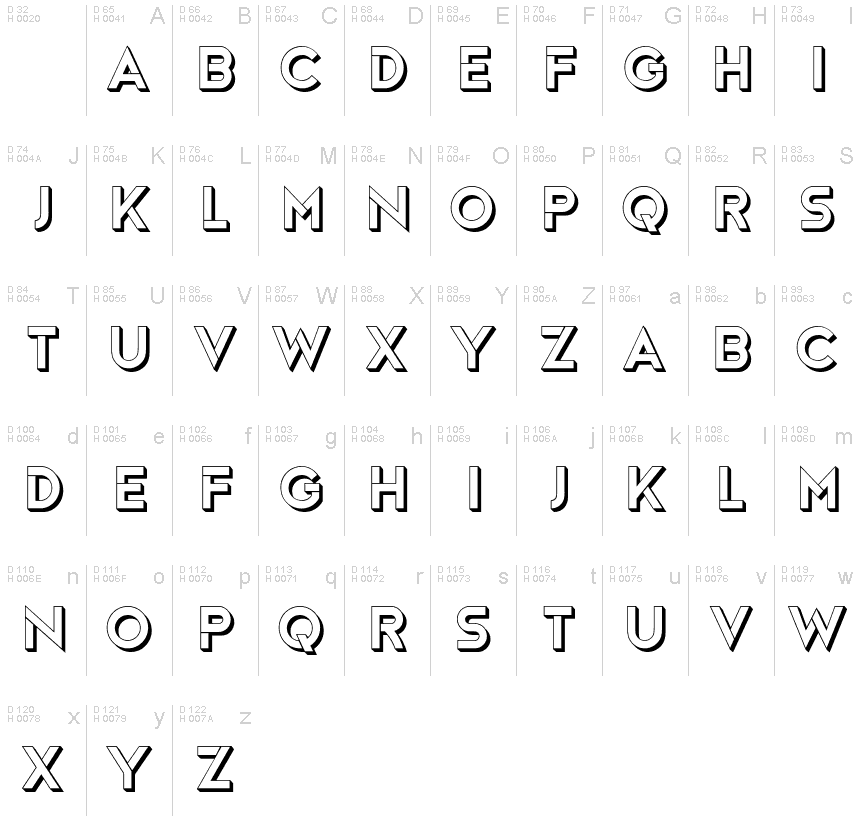
Russian Literature Hollow
Russian Literature Hollow is a captivating display font that brings an artistic touch to any project. With its unique 3D stencil style and bold presence, this font is perfect for book covers, posters, and branding materials.
Its hollow design adds a sense of intrigue and mystery, making it ideal for movie titles or album artwork. Whether you're working on a vintage-inspired project or want to add a modern twist to your designs, Russian Literature Hollow will make a lasting impression.